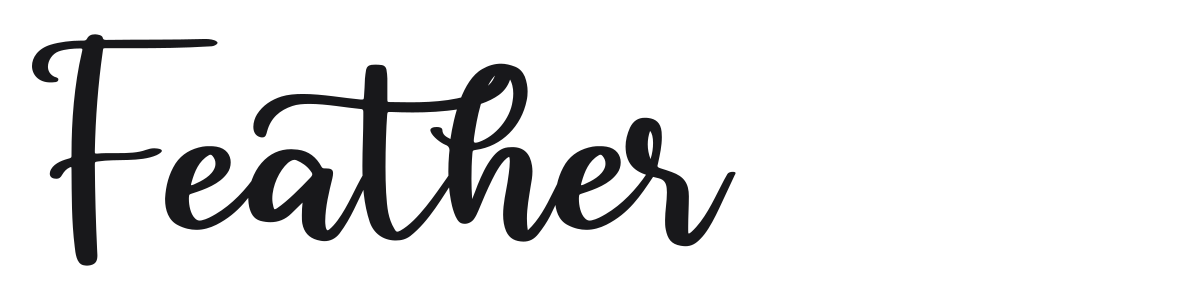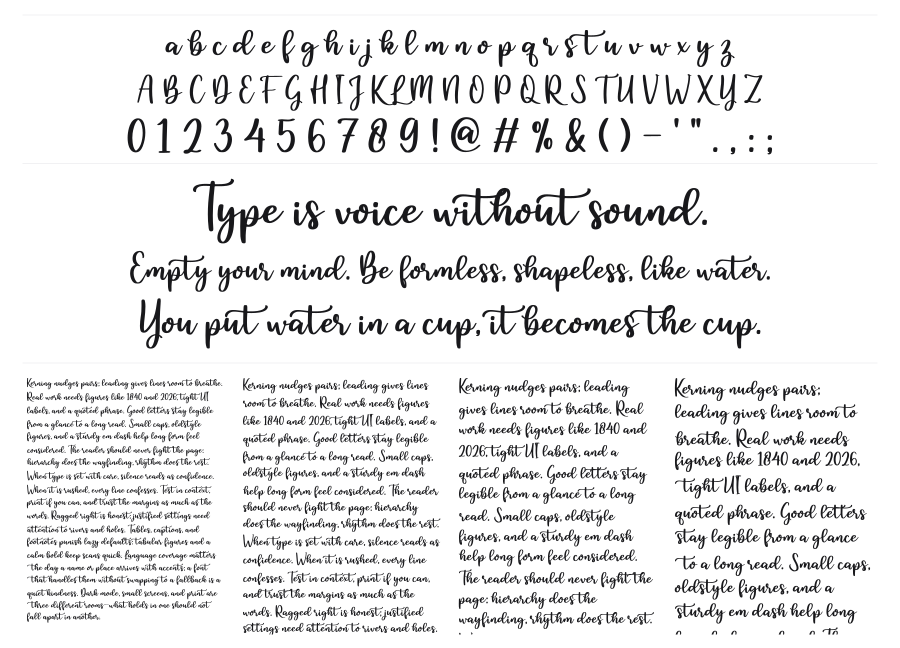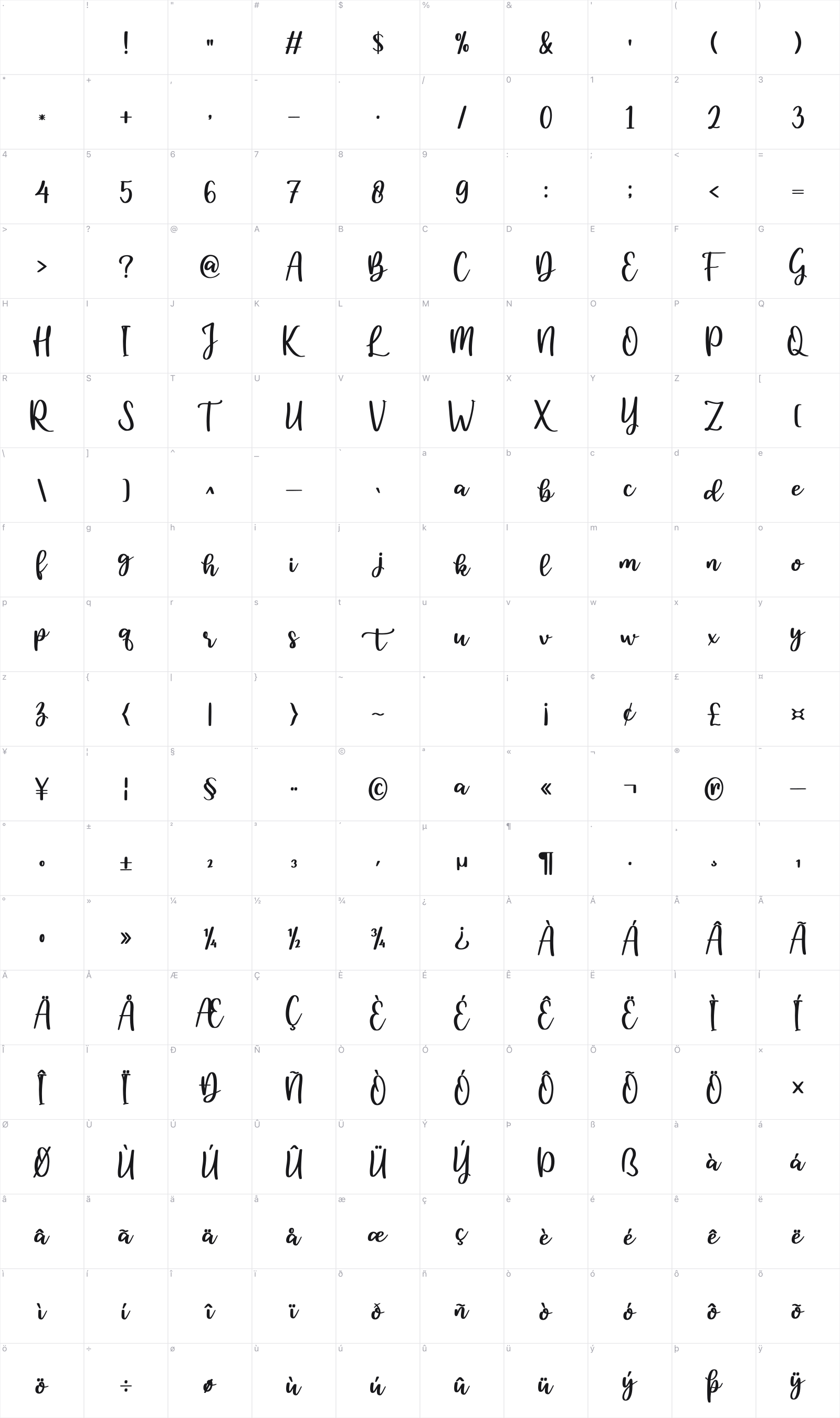
Feather
Feather is a casual connected script with smooth, flowing strokes and a lively bounce that feels handcrafted without being rough. The generous curves and swashing strokes give it warmth and energy, making it versatile across branding, packaging, and editorial contexts. It sits comfortably in the sweet spot between polished and personal.